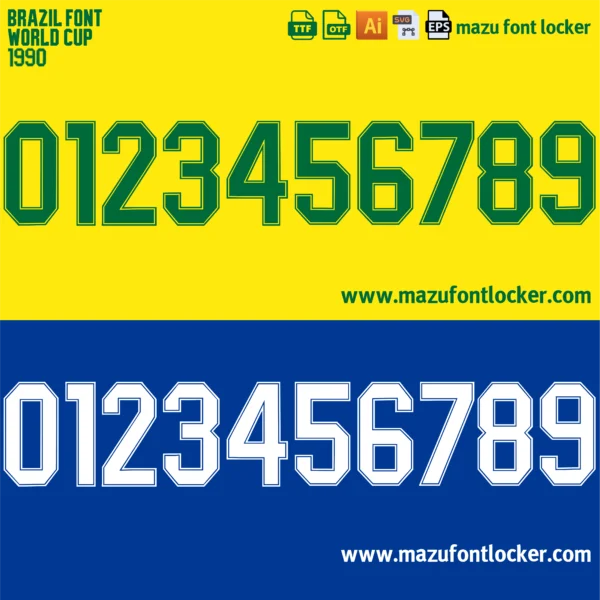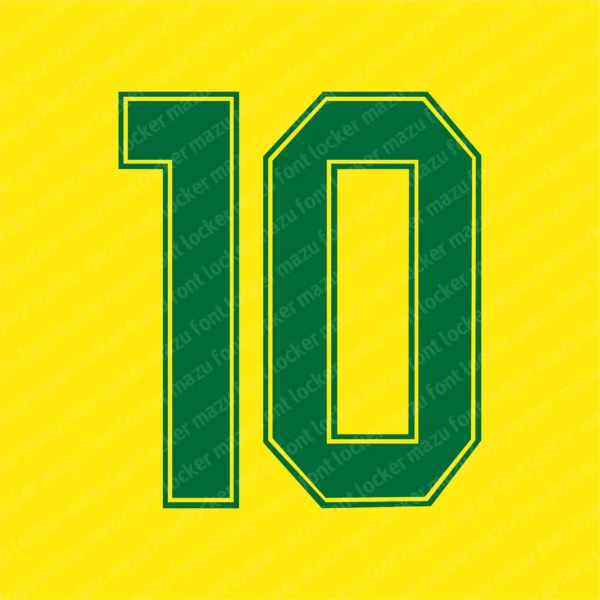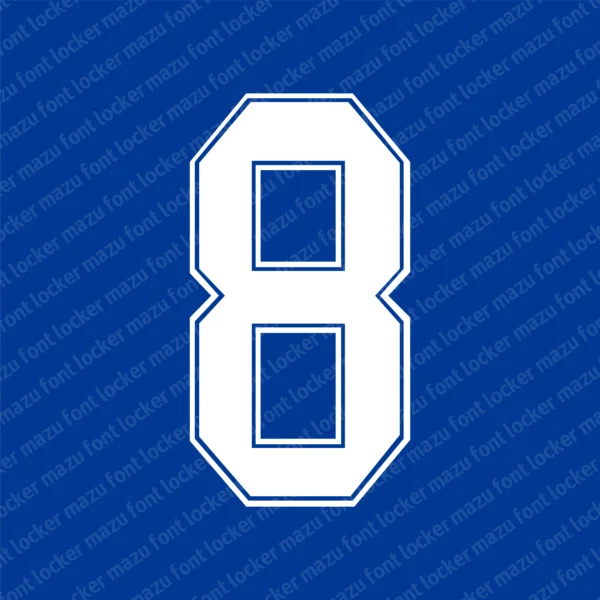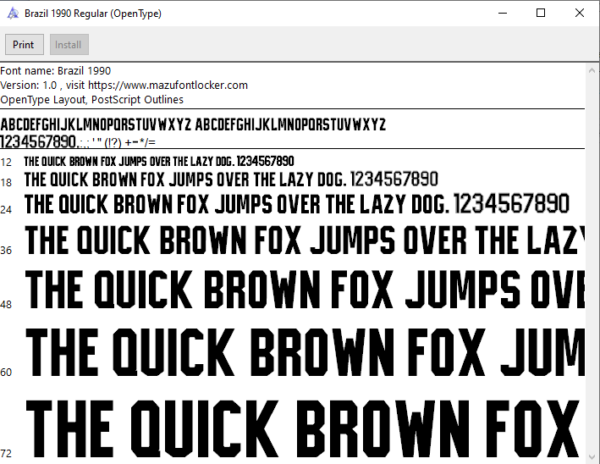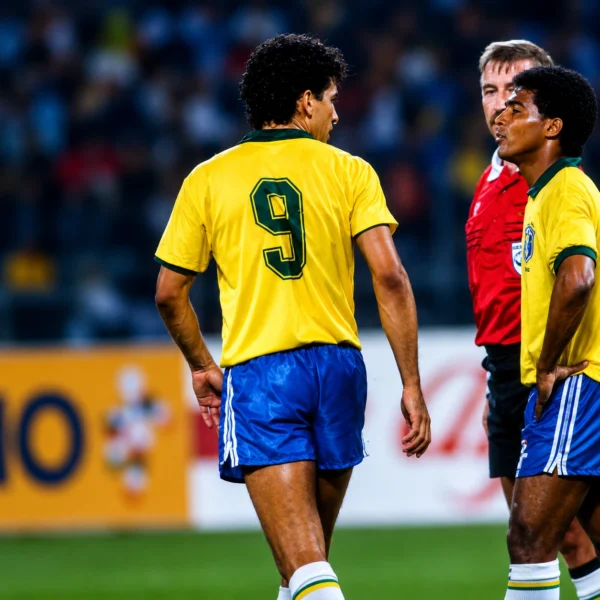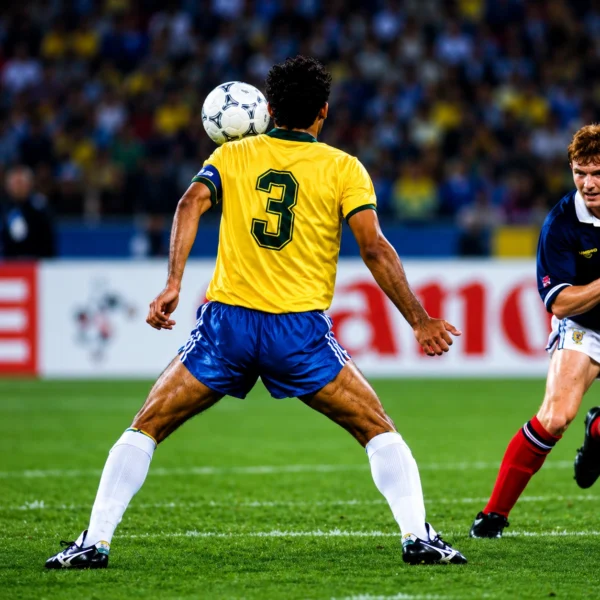
Brazil World Cup 1990 Font Vector – Stunning Legendary Retro Masterpiece
Channeling the proud Canarinho spirit with raw football energy, it features the powerful and distinctive design that merges World Cup heritage with timeless samba soul. Perfect for premium jersey mockups, football designs, and collector-worthy Brazil 1990 art.
Brazil World Cup 1990 Font Vector – Classic Canarinho Typeface
The Brazil World Cup 1990 Font Vector is a premium typeface that faithfully recreates the iconic lettering from Brazil’s legendary 1990 FIFA World Cup jersey. This vector font kit captures the bold, retro athletic style that defined one of the most memorable Brazilian national team kits in history.
Designed for football designers, graphic artists, and passionate Brazil fans, the Brazil World Cup 1990 Font Vector delivers authentic vintage aesthetics perfect for retro jersey mockups, fan merchandise, posters, social media content, and nostalgic football campaigns.
Why Choose Brazil World Cup 1990 Font Vector
This font set is highly valued for its historical accuracy and premium quality. Every letter and number has been meticulously recreated to match the original typography used on Brazil’s 1990 World Cup shirts. It perfectly blends classic football heritage with modern design usability.
The letterforms feature bold, athletic proportions with a slightly condensed and dynamic stance. The strong, clean strokes deliver powerful visual presence while maintaining excellent readability — ideal for both large squad numbers and detailed graphic applications.
The numerals showcase classic 90s football styling with sharp contours, balanced weight, and authentic athletic proportions, ensuring outstanding results across print and digital media.
- Full uppercase A–Z and numbers 0–9 in the official 1990 Brazil style
- Multilingual Latin support with diacritics
- Includes precise crest placement used under player numbers on the 1990 kit
Brazil World Cup 1990 Classic Kit
The 1990 FIFA World Cup in Italy saw Brazil wear one of their most iconic yellow jerseys. Featuring the legendary CBF badge and classic typography, this kit remains a symbol of Brazilian football excellence and style. The squad, led by stars like Careca, Valdo, and Claudio Taffarel, delivered unforgettable performances that are still celebrated by fans worldwide.
The Brazil World Cup 1990 Font Vector is an independently developed typeface package. It has been carefully crafted to replicate the official lettering from Brazil’s legendary 1990 World Cup jersey. Perfect for artistic projects, fan creations, and football design enthusiasts.